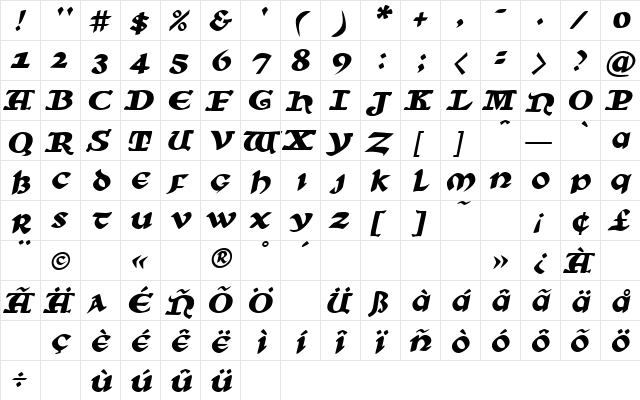
SunSplash HeavyItalic
Design Context for SunSplash Typeface
SunSplash is a composed and adaptable typeface that performs quietly and consistently across a wide range of design contexts. The dynamic lean of this cut emphasises speed and emphasis in any layout.
Pro Tip: Try SunSplash for annotation and caption copy alongside an upright companion — the contrast in angle creates a dynamic but ordered typographic system.